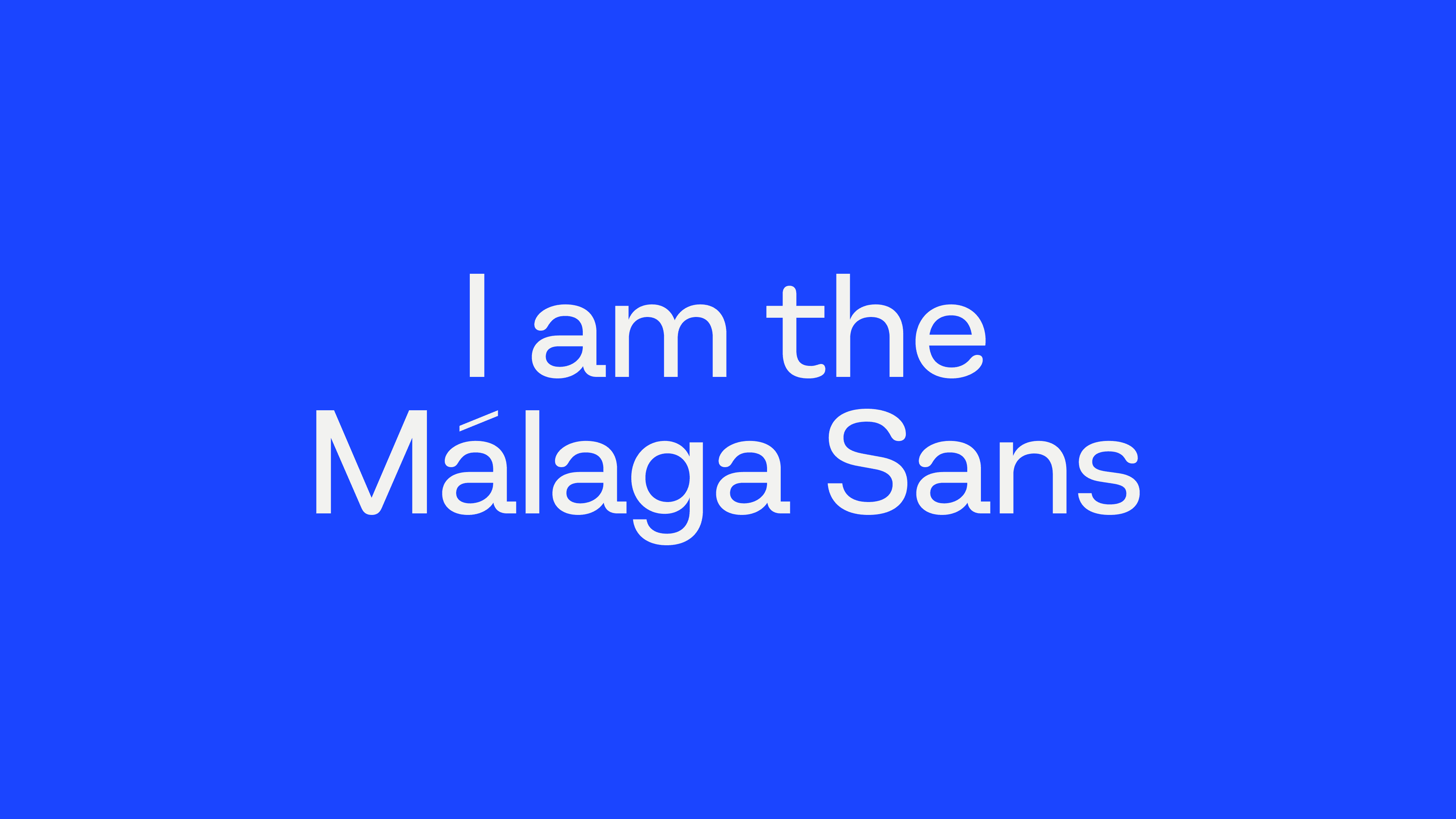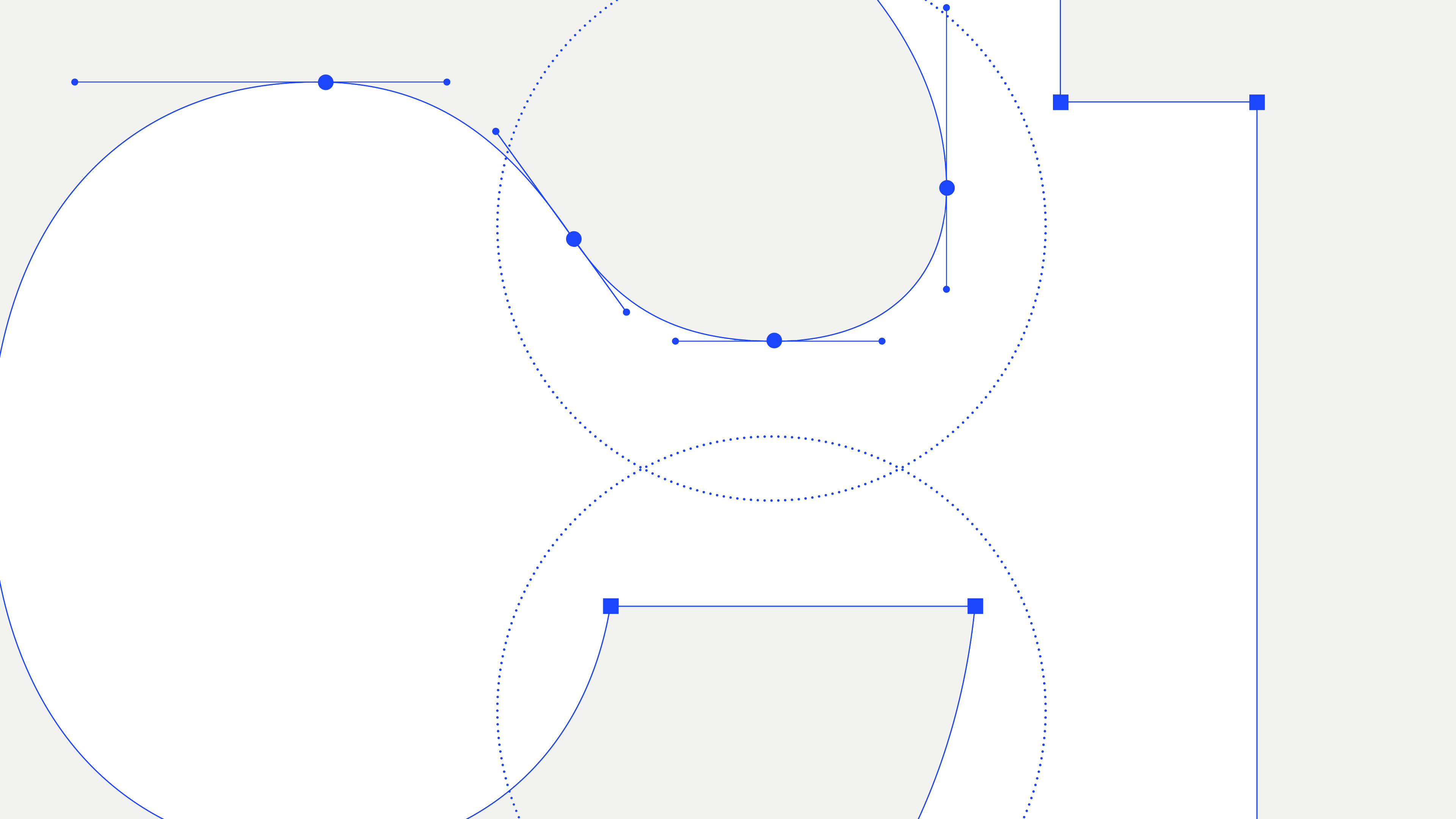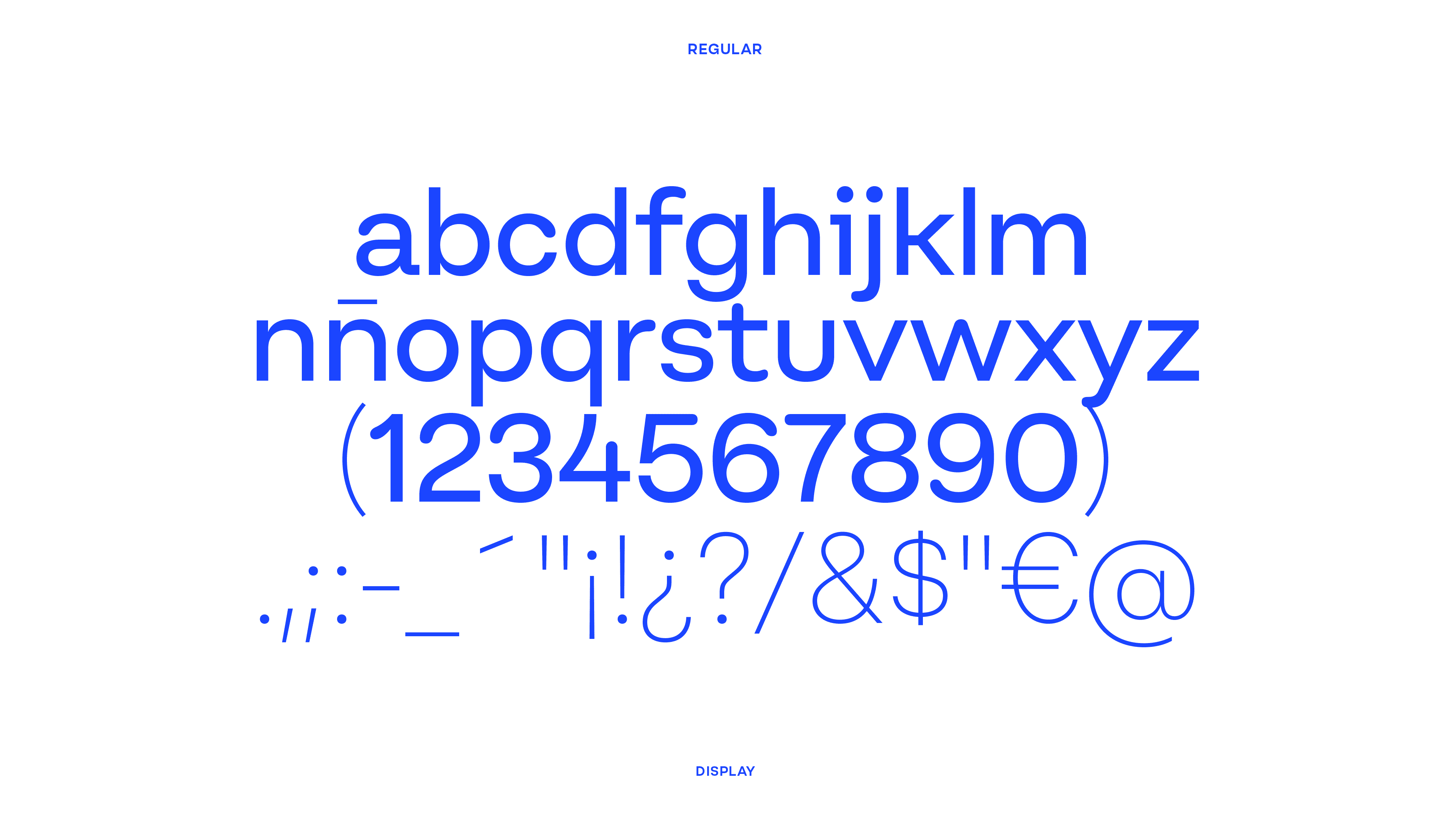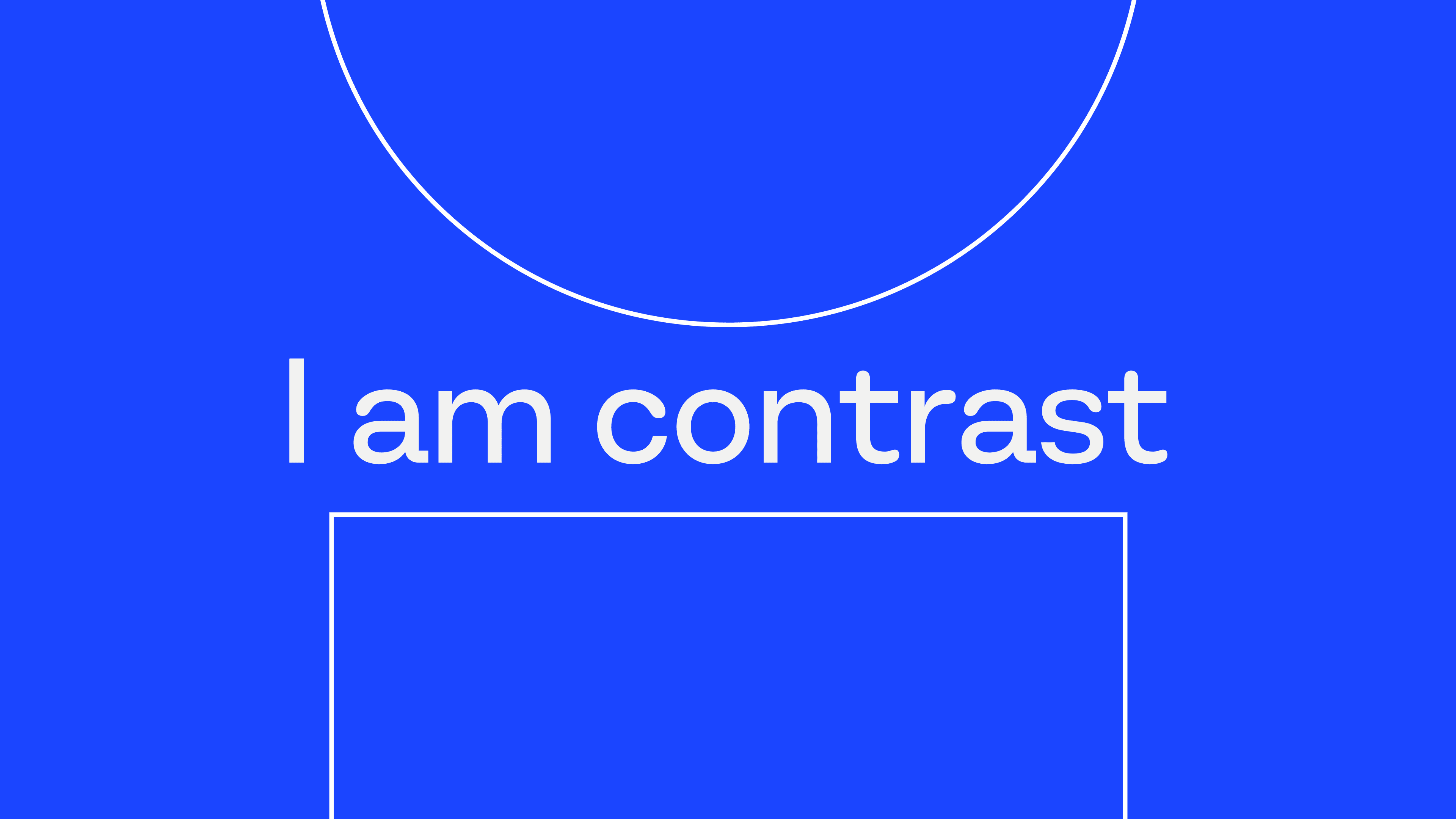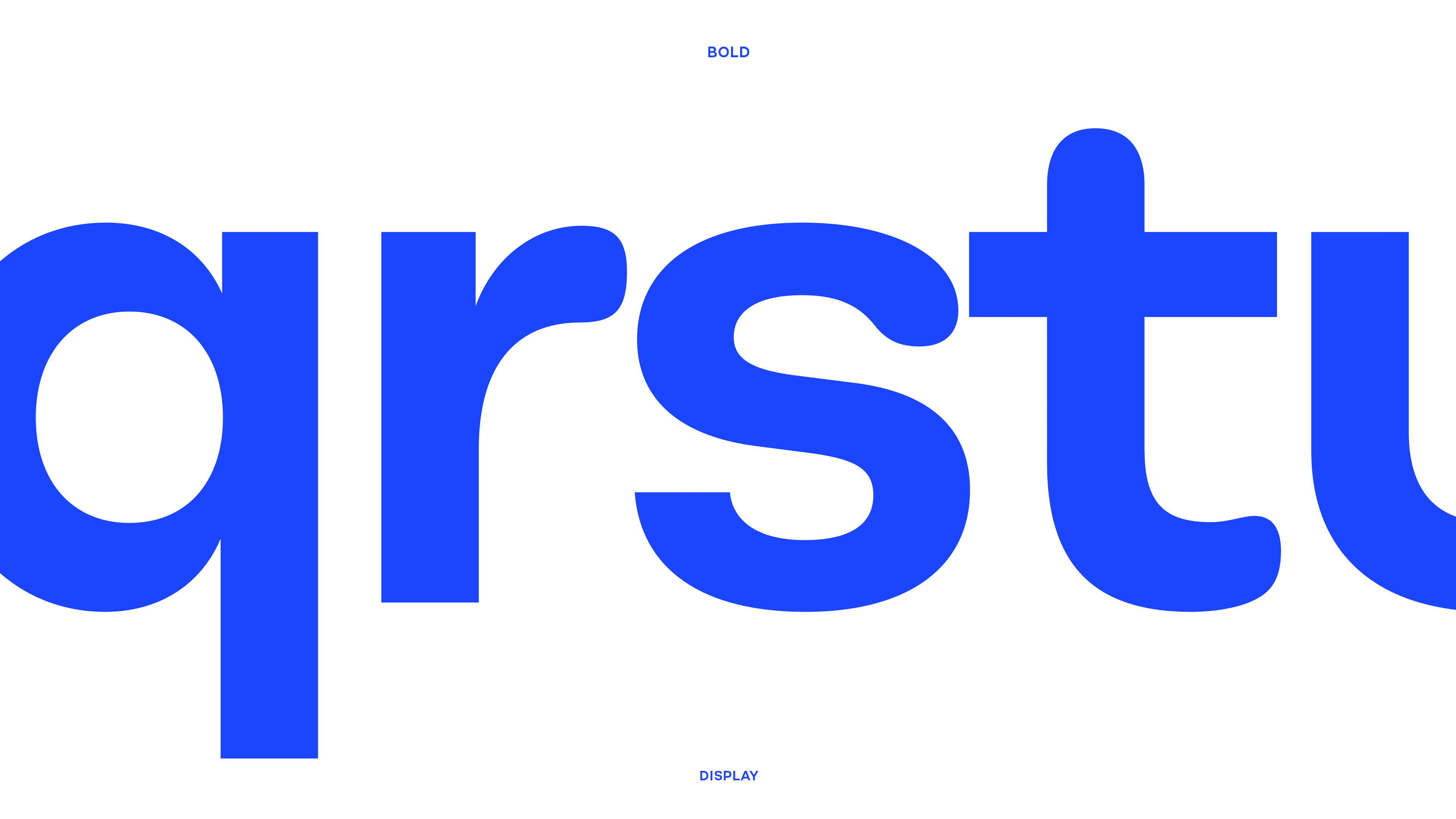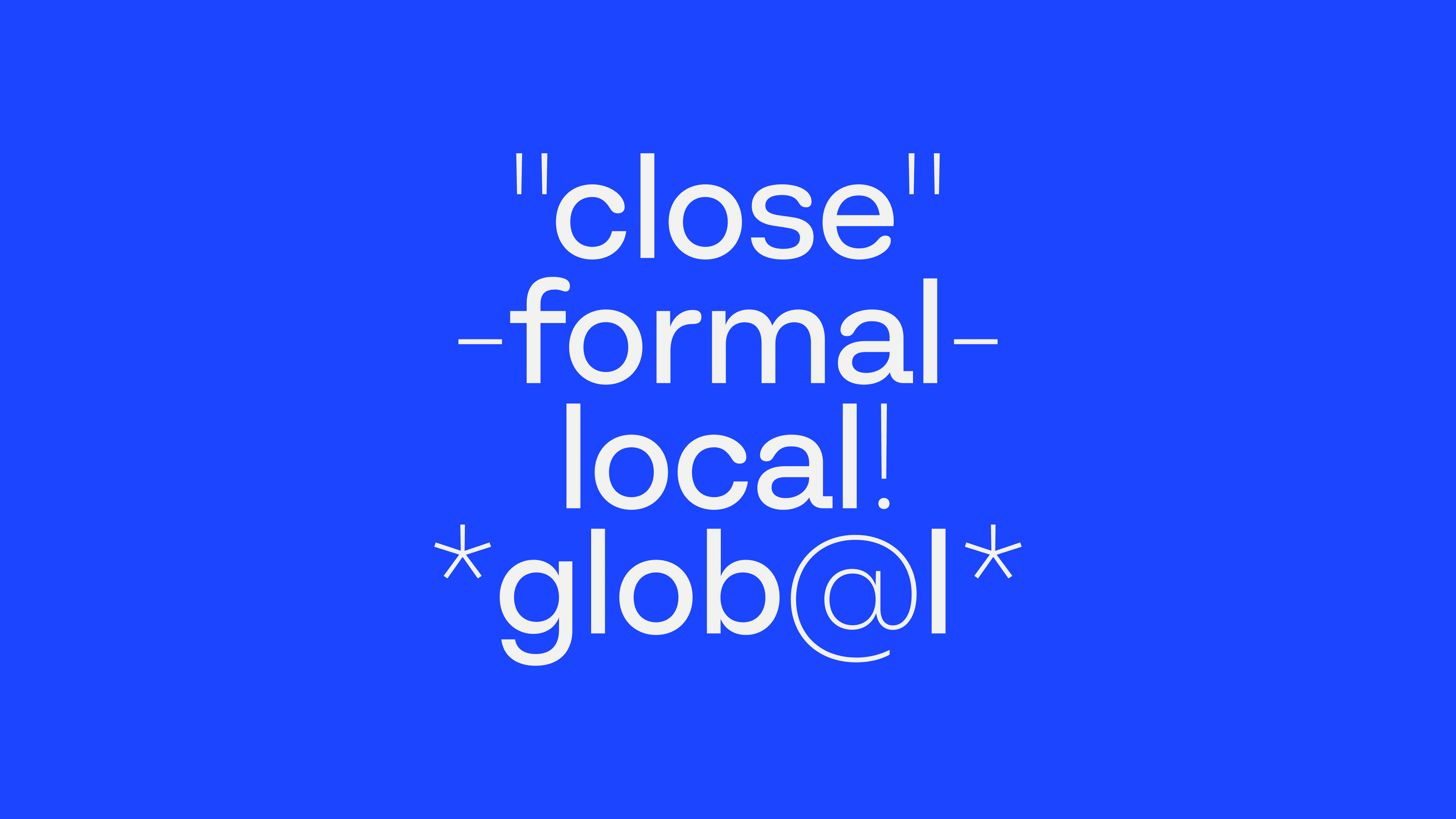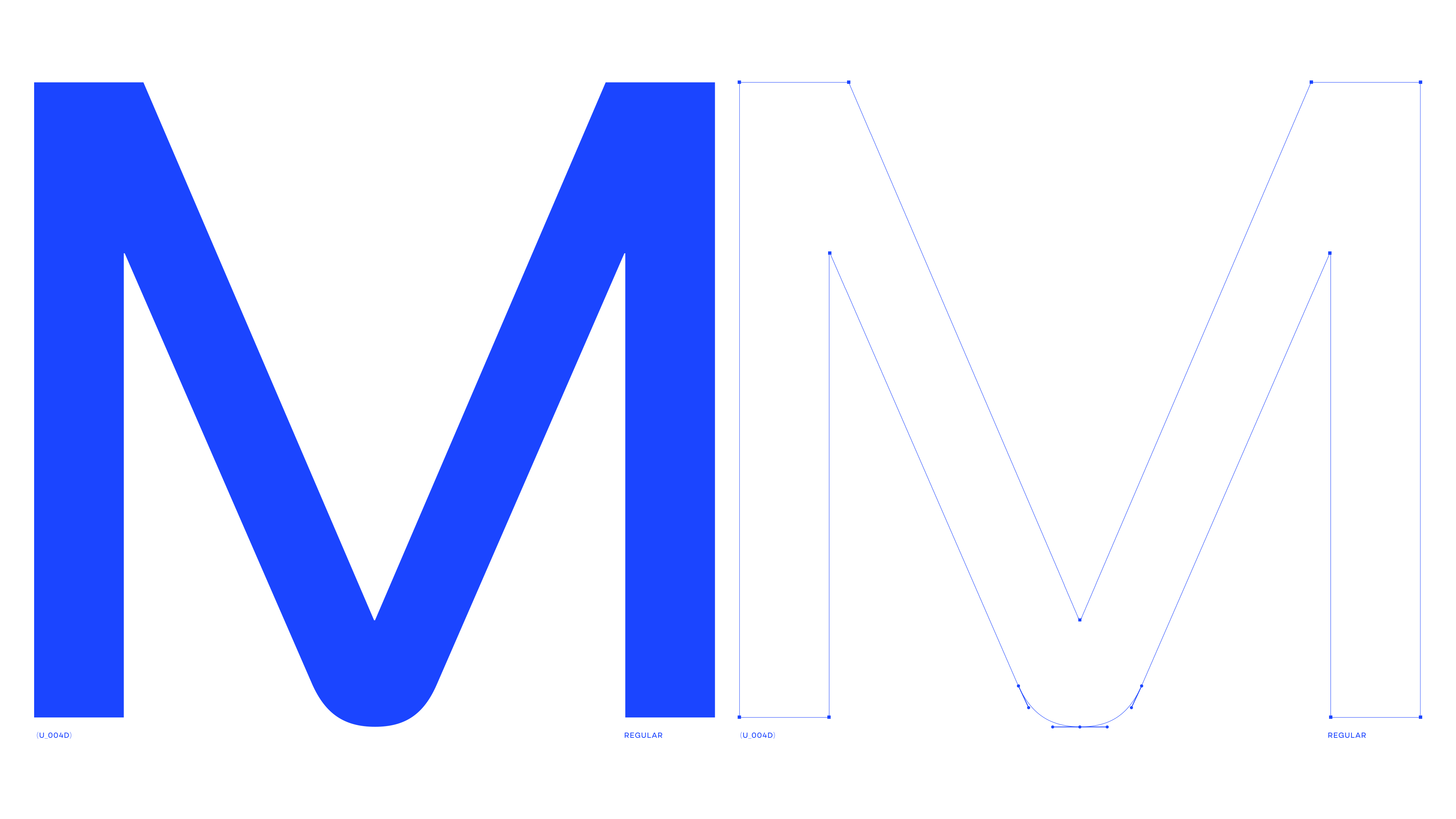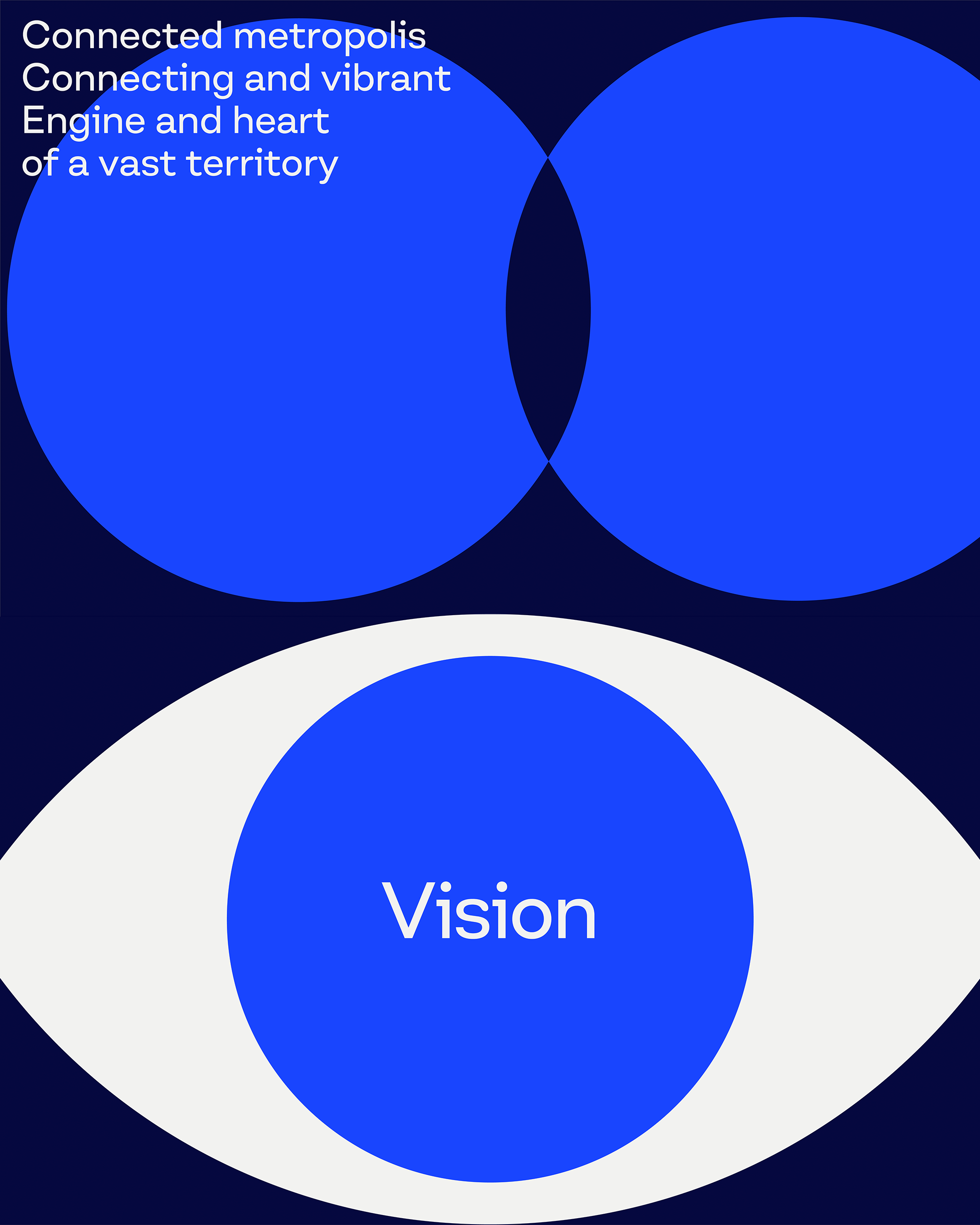
Málaga is increasingly capturing international attention, driven by its ambitious current and future commitments. To capitalize on this momentum, the Málaga City Council and Promálaga spearheaded the creation of a new city brand designed to elevate the city’s global relevance and aspirational appeal.
This initiative reimagines Málaga’s narrative to compete effectively in a landscape defined by digital nomads and global talent: Málaga, the all-round city.
To encapsulate Málaga’s unique spirit, we designed Málaga Sans, a display typeface available in Regular and Bold weights. This contemporary sans-serif font features a deliberate contrast between terminals and stems, where circular and square shapes converge to symbolize the city’s vital balance.
Conceived to bridge the gap between local warmth and global sophistication, the typeface offers a versatile visual language that allows the brand to adopt a tone that is simultaneously formal and fresh, ensuring seamless adaptation across any communication context.